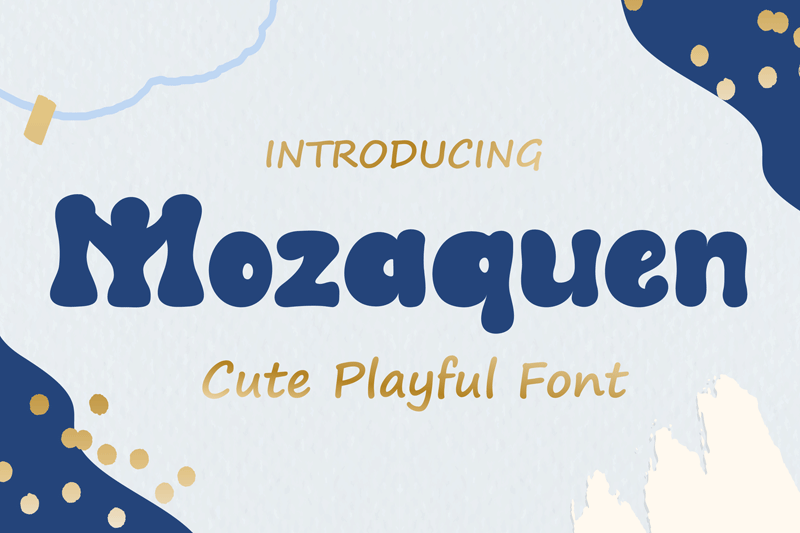
Font name: | Mozaquen |
Author: | Javatype Studio |
Introducing Mozaquen is a cute font with a modern style and made in a way that follows current trends, a quirky font perfect for all of your craft projects! NOTE: This demo font is for PERSONAL USE ONLY! But any donation are very appreciated Paypal account for donation: http://paypal.me/tyoyulianto visit my store https://www.creativefabrica.com/ref/433909/ |